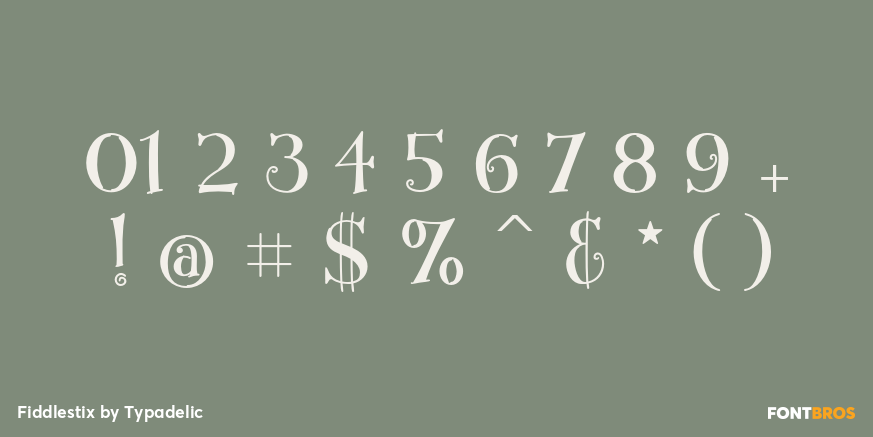
Fiddlestix
Font Family by Typadelic
Fiddlestix contains 3 styles: Outline, FunnyCaps and Solid. Cute and friendly, Fiddlestix looks like it was hand drawn using a felt marker. Use FunnyCaps with its little embellishments like leaves, squiggles and dots to add an element of fun to your text.